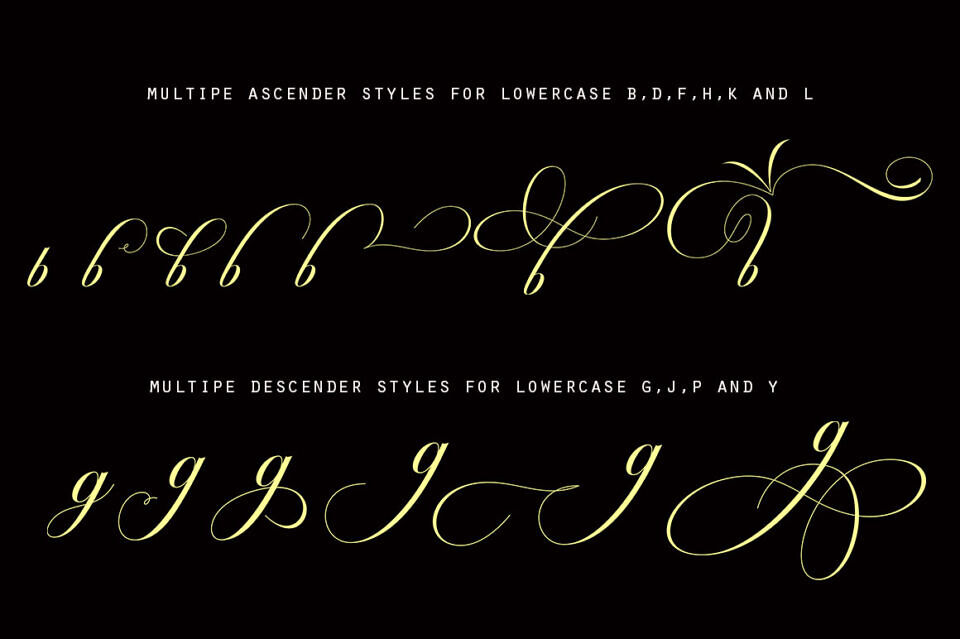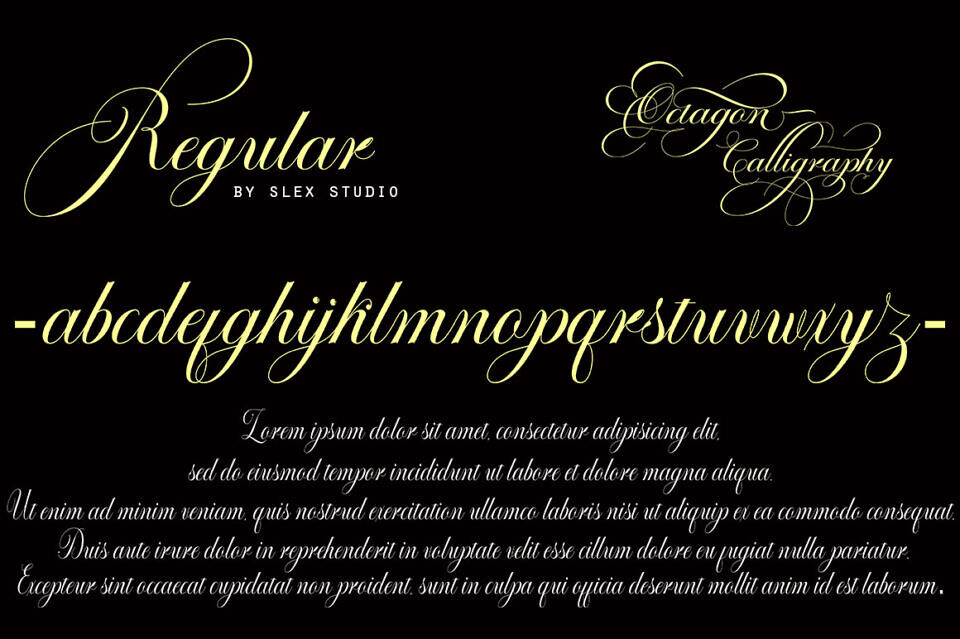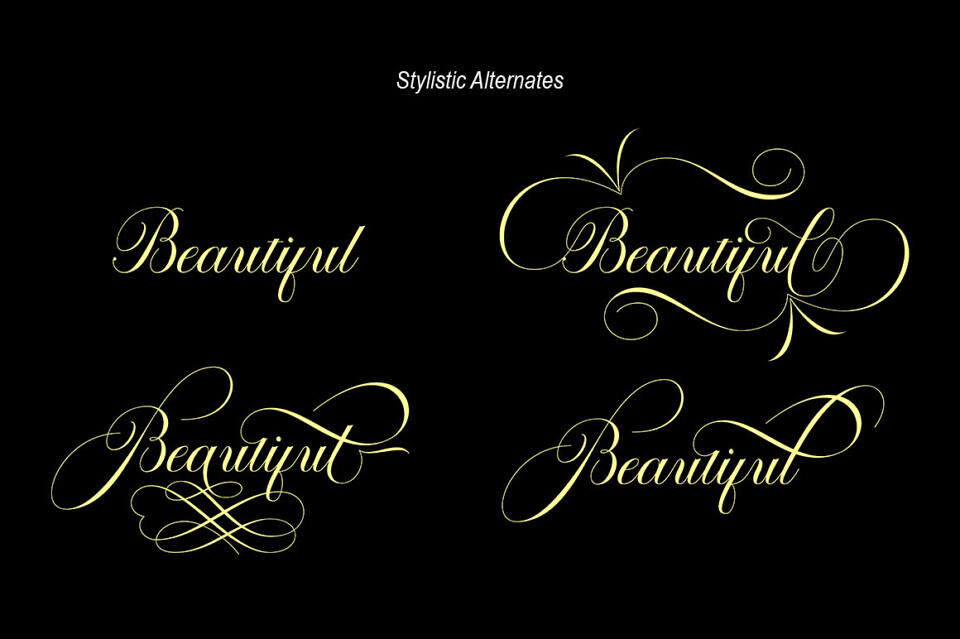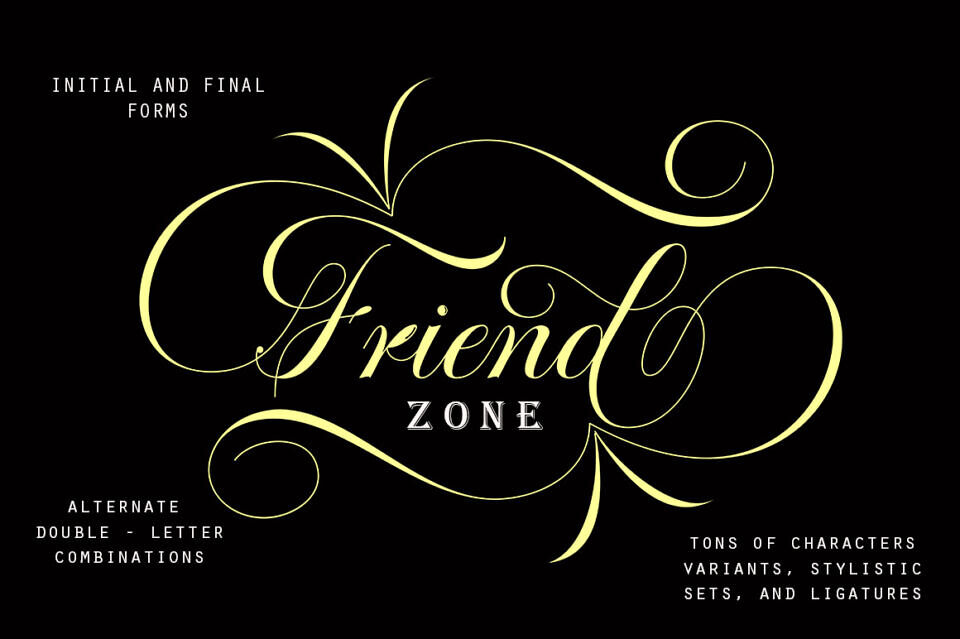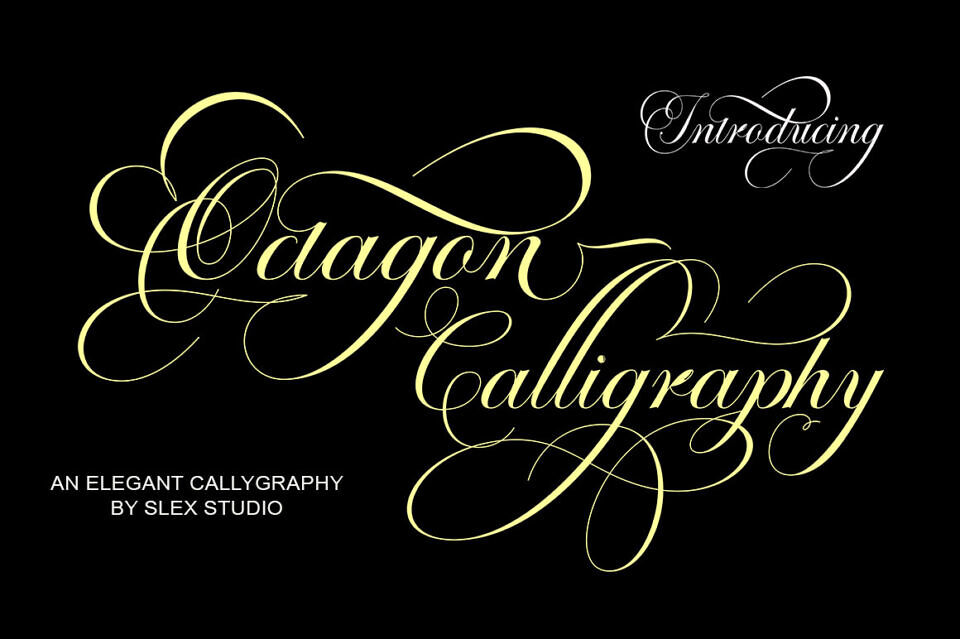
Octagon Calligraphy Font
Octagon Calligraphy is calligraphy font with a classic style and a touch of elegance, inspired by the handwriting of women and ancient manuscripts. Carefully designed to work together in harmony that makes it very suitable for wedding media, book covers, greeting cards, logos, branding, business cards and certificates, even for any design work that requires a classic, formal or luxurious.